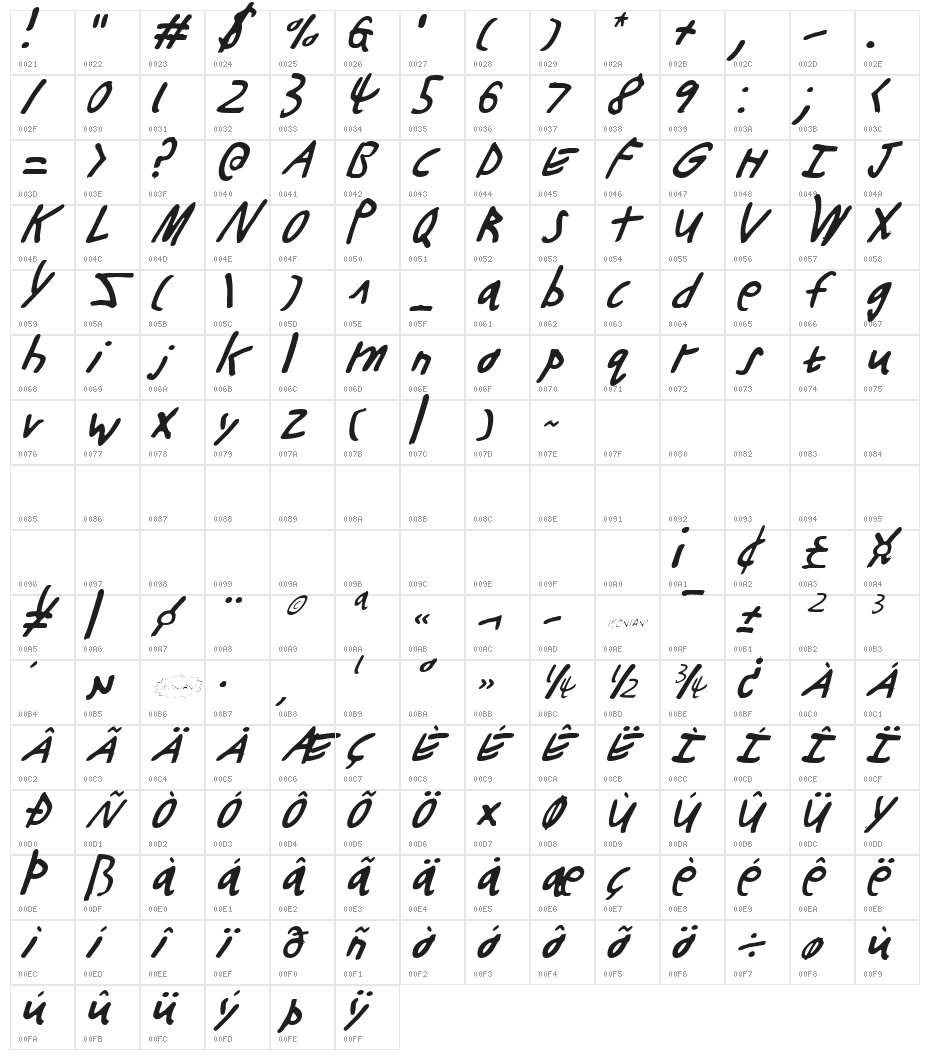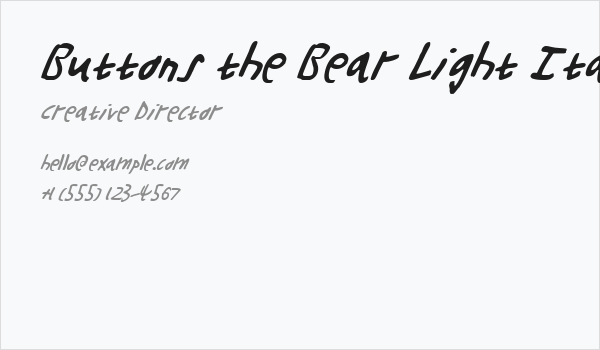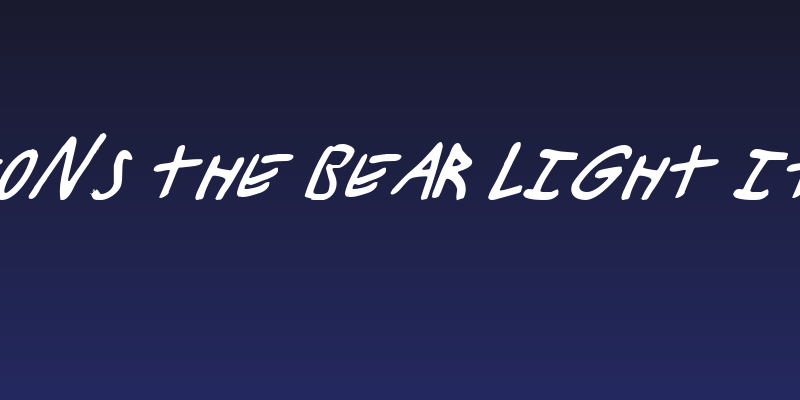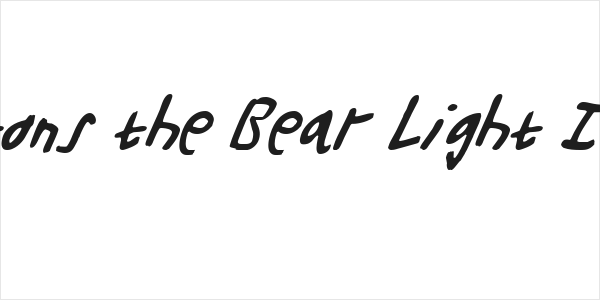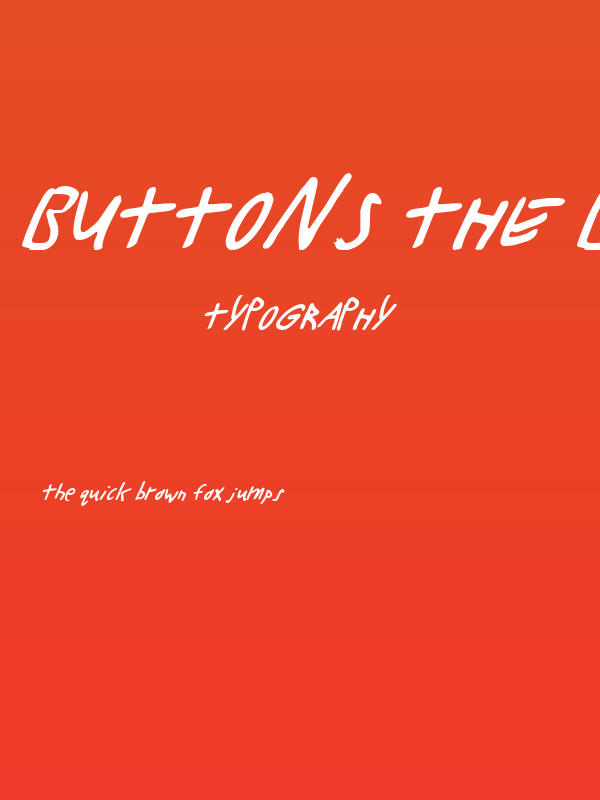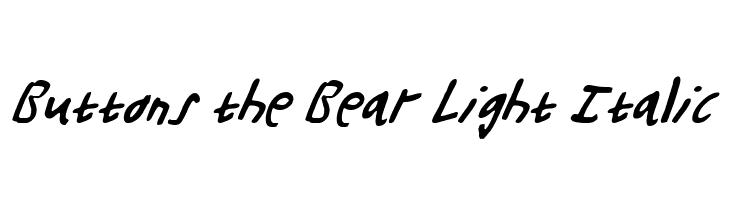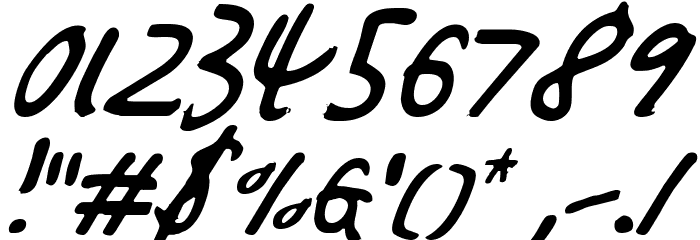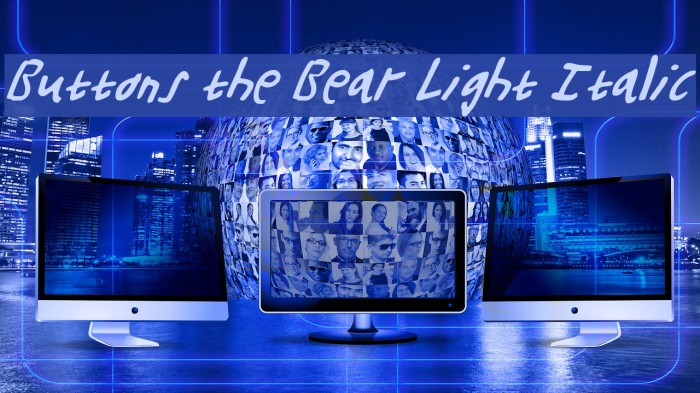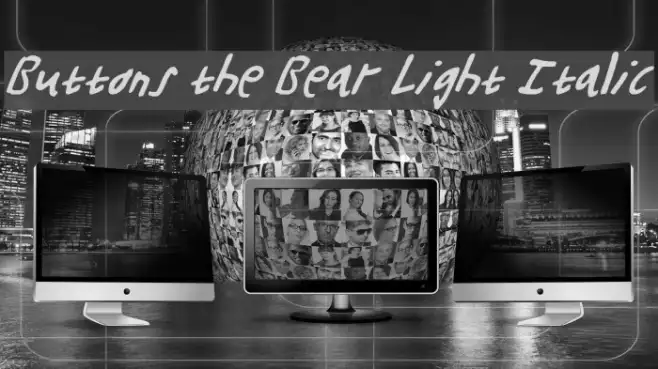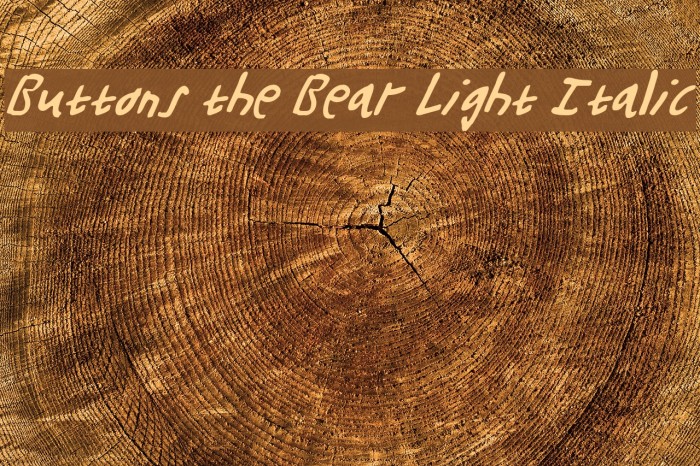
Buttons the Bear Light Italic Font
Buttons the Bear Light Italic Description
This font exhibits a playful and casual handwritten style, characterized by its fluid and dynamic strokes. The letters are slightly slanted, giving it an italic appearance, and the overall design is light, conveying a sense of informality and spontaneity. The uppercase and lowercase letters maintain a consistent style, with rounded edges and a smooth flow between characters. Numbers and special characters follow the same aesthetic, ensuring uniformity across all glyphs. The font's organic and freeform nature makes it suitable for projects that require a personal touch.
| Overall Style | Casual |
| Use Case | Logos, Headlines, Informal Text |
| Proposed Projects | Ideal for greeting cards, personal notes, informal invitations, and creative branding. |